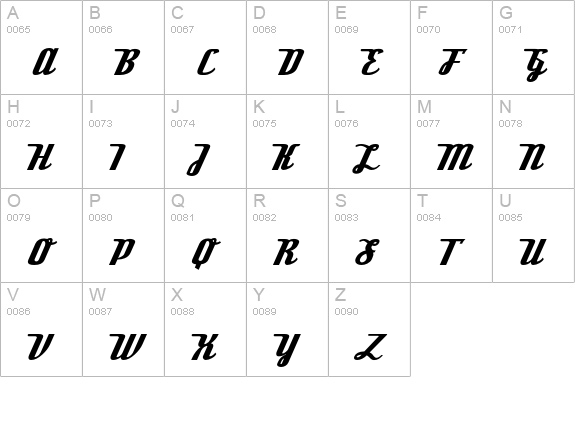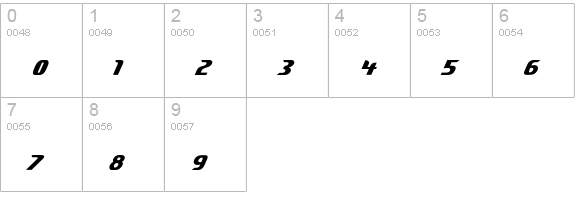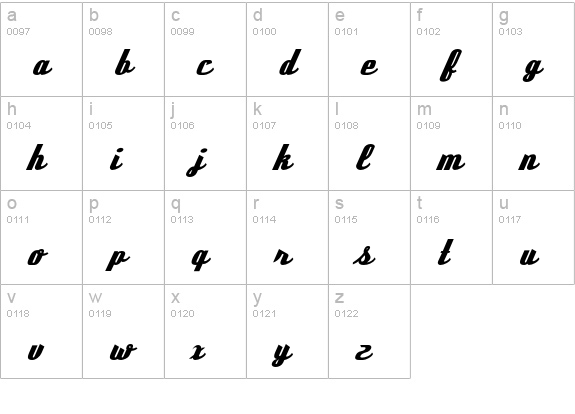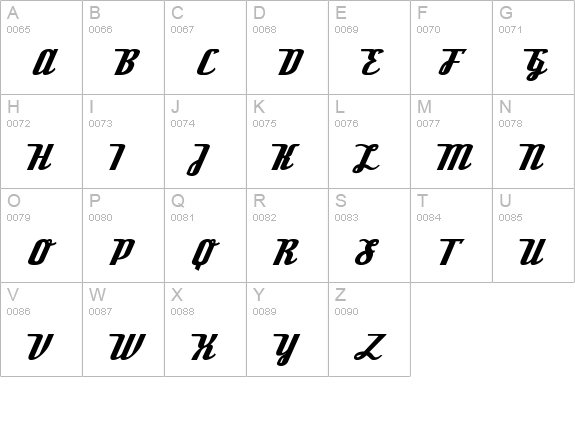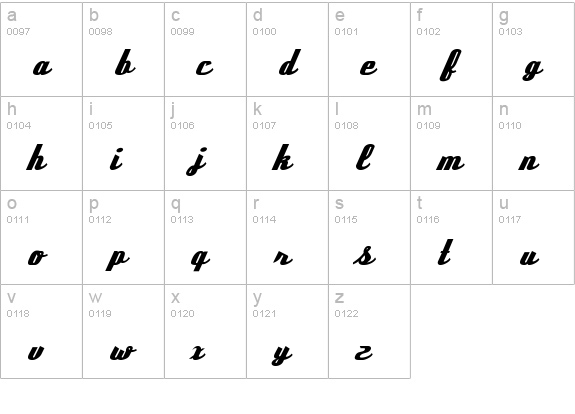
DeftoneStylus Font Details
DeftoneStylus font is a unique and sophisticated typeface that exudes elegance and professionalism. With its sleek lines and modern design, this font is perfect for creating eye-catching titles, headers, and logos. The combination of sharp angles and smooth curves gives DeftoneStylus a contemporary edge that is sure to make your designs stand out. The best part? DeftoneStylus font is completely free to download at FontsMarket.com. This means you can add this stylish font to your collection without having to spend a dime. Whether you're a graphic designer, a web developer, or just someone who loves experimenting with different fonts, DeftoneStylus is a must-have addition to your toolkit. Don't miss out on the opportunity to enhance your projects with the elegance and sophistication of DeftoneStylus font. Download it for free today and start creating stunning designs that leave a lasting impression.